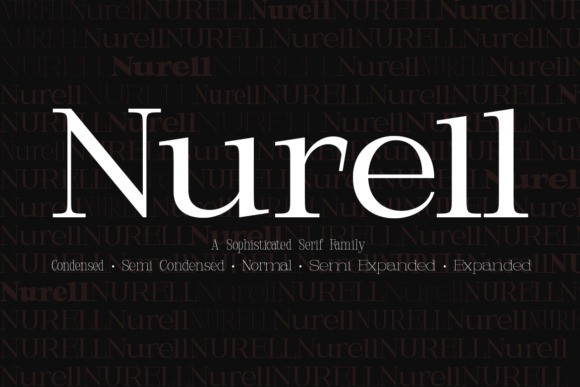
Nurell Font is a sophisticated serif typeface designed to bring elegance, versatility, and timeless character to any design project. Featuring 45 upright styles across five carefully crafted width categories, Nurell offers exceptional flexibility for editorial layouts, branding, packaging, publishing, luxury identities, and professional typography. Its refined serif details, balanced proportions, and excellent readability make it suitable for both large display applications and extended body text.
The family includes five width variations, each available in a complete weight range from Thin to Black, allowing designers to create harmonious typographic systems with ease.